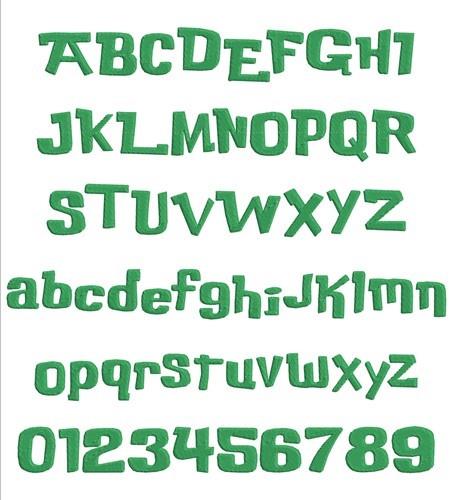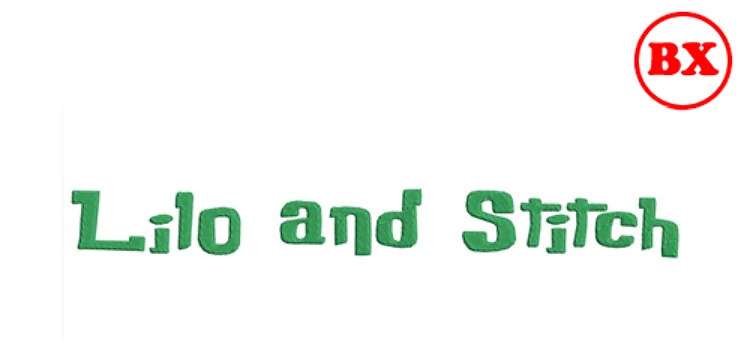
Easy Embroidery is happy to present Lilo And Stitch Embrilliance - Decorative Playful Lettering - BX font machine embroidery font which has Decorative machine embroidery font with a playful style in green and varying thickness, perfect for casual themes on items like t-shirts. Available in BX font and Embrilliance formats. included. If you would like to view more embroidery fonts and alphabets please search our embroidery fonts page.
Lilo And Stitch Embrilliance - Decorative Playful Lettering - BX font